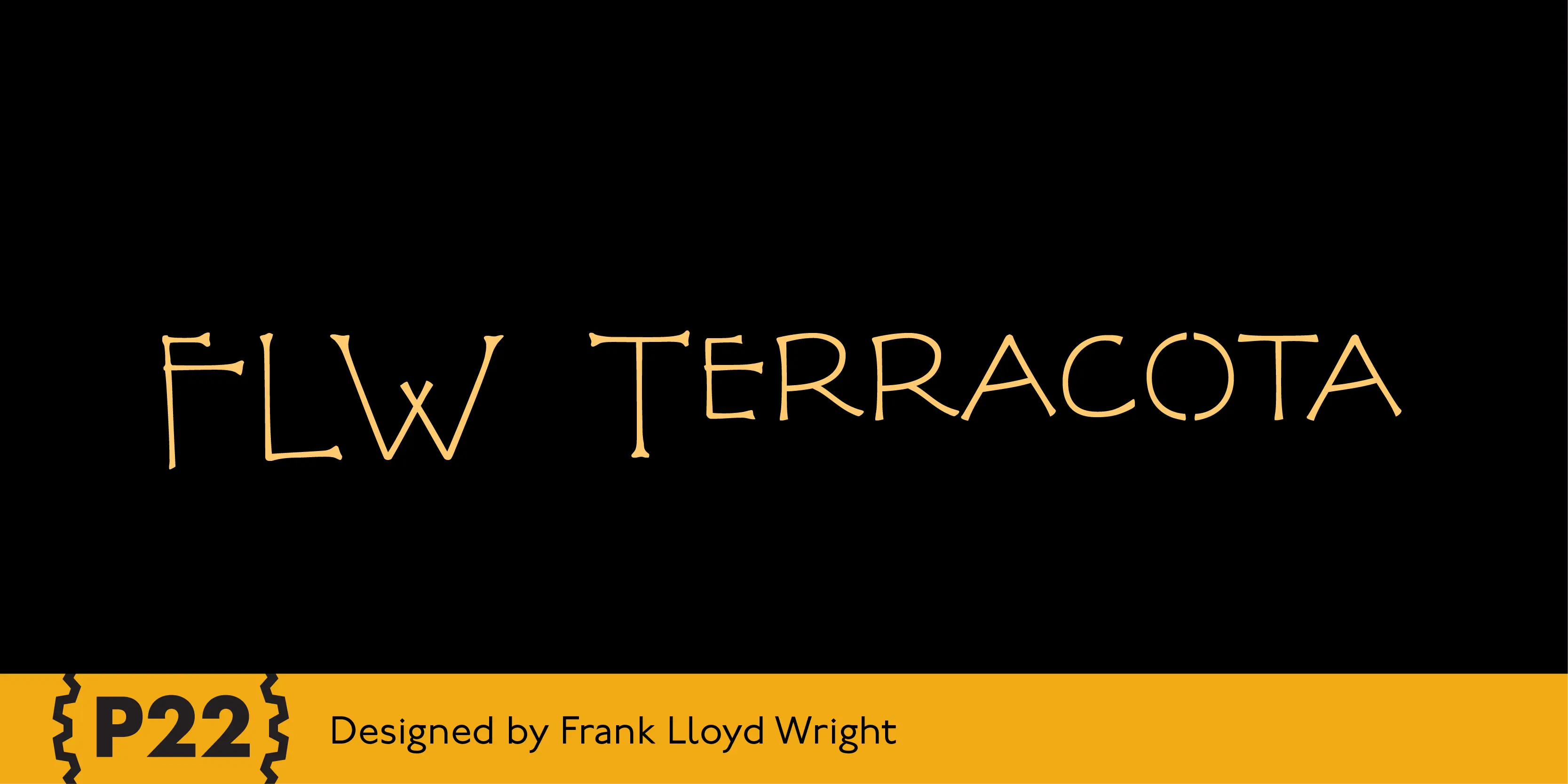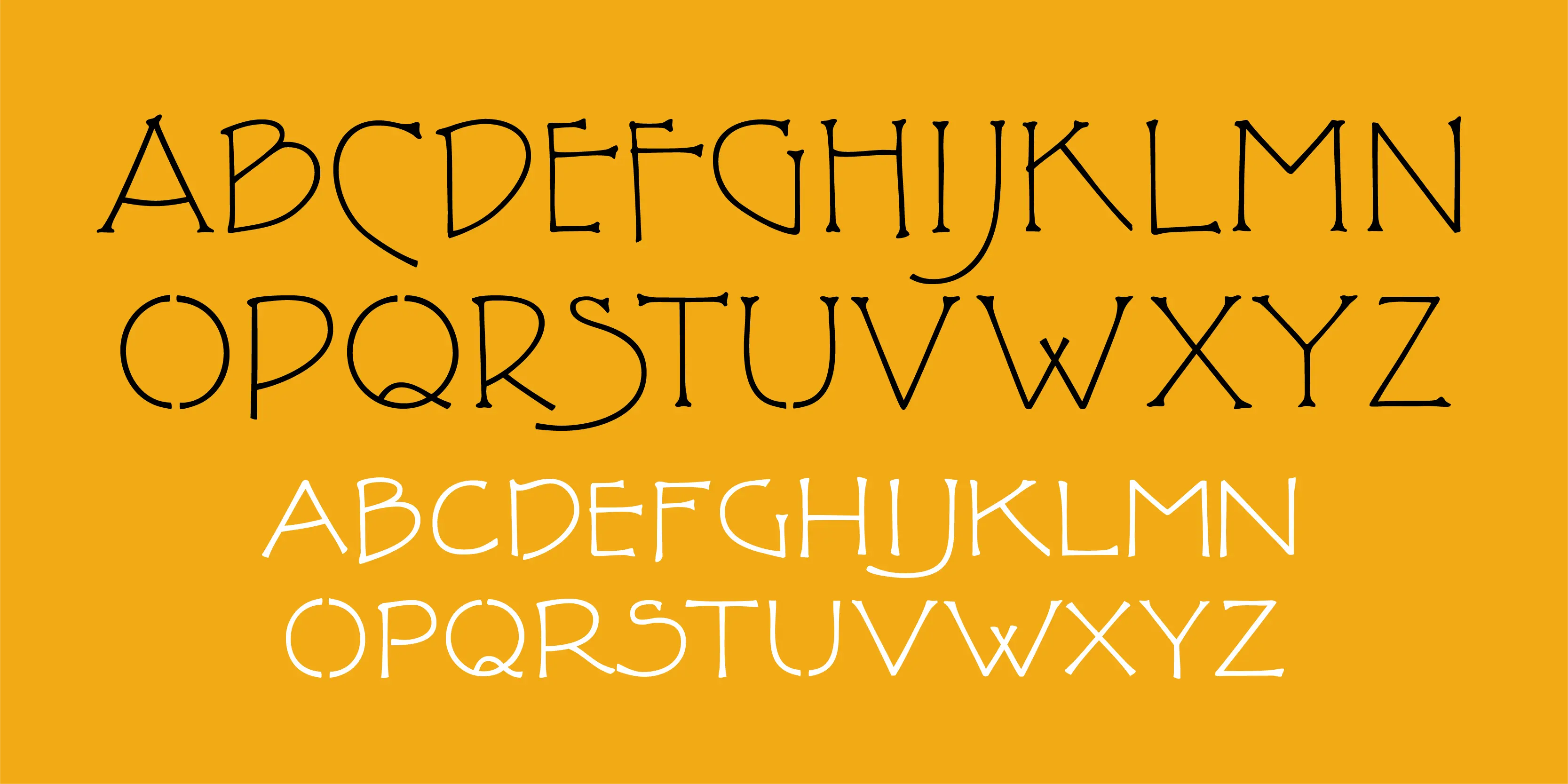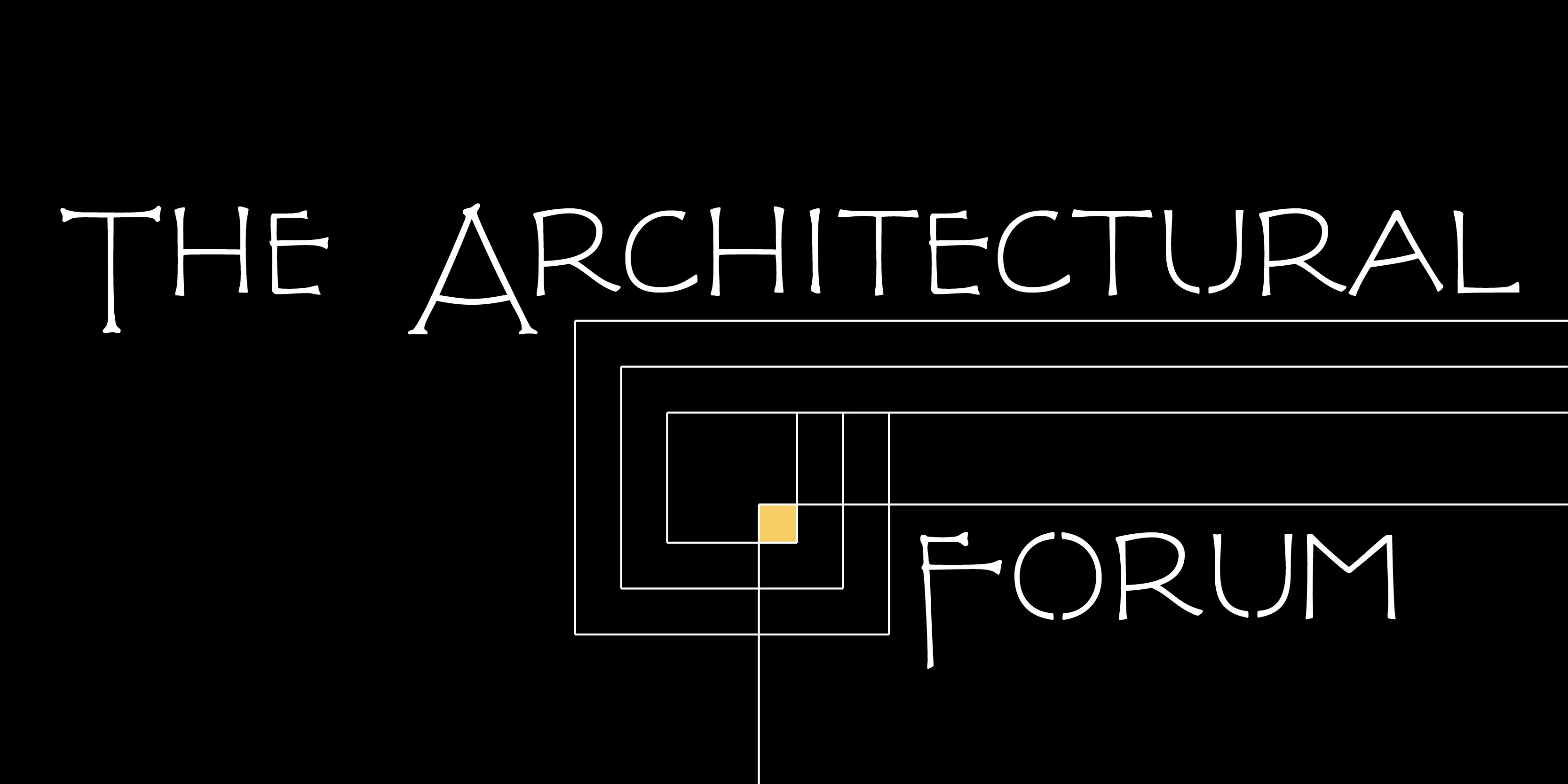
FLW Terracotta Font Family
FLW Terracotta
The lettering and 100 Extras for this font set, the third in P22’s Wright series, are derived from letterforms and decorative embellishments found in Wright’s early work (1893–1910) and in his book, The House Beautiful (1896–97). Wright based his delicate graphic designs on stylized natural plant forms; Terracotta users can adorn their graphic products with these beautiful motifs.
• Ordinal Numerals
• Ornaments
Ornaments
Stylistic Set 1
Ordinals